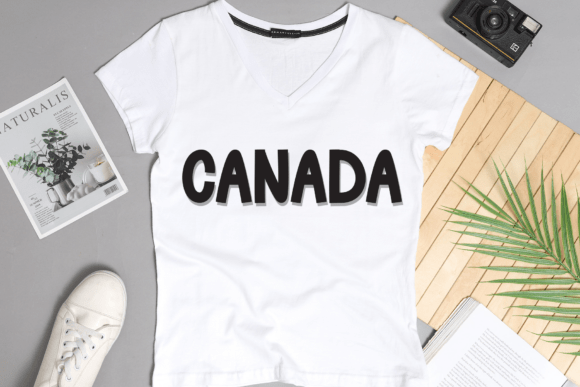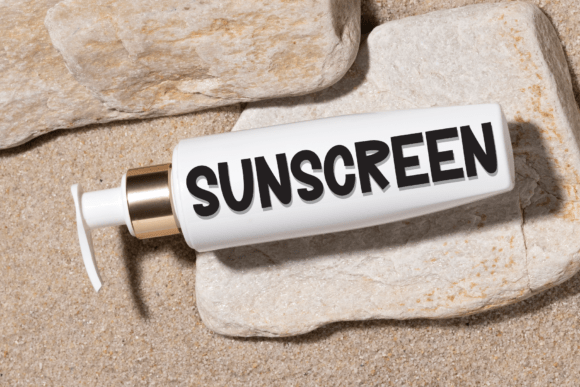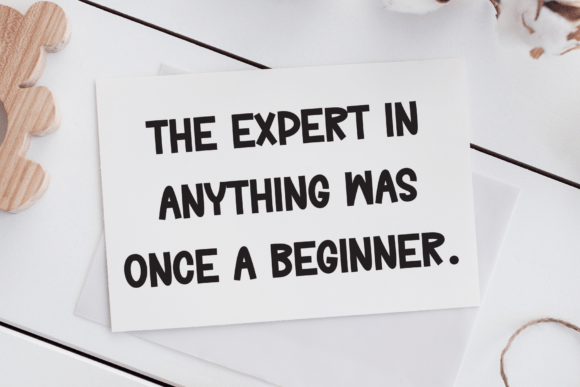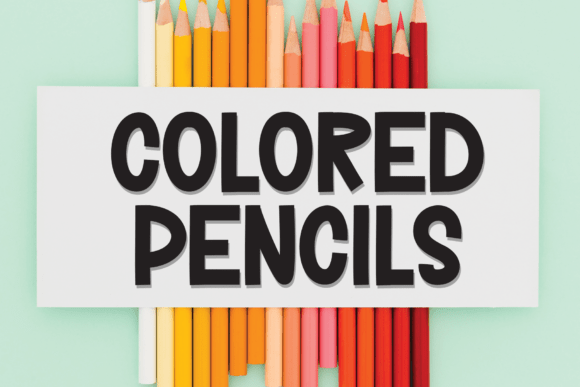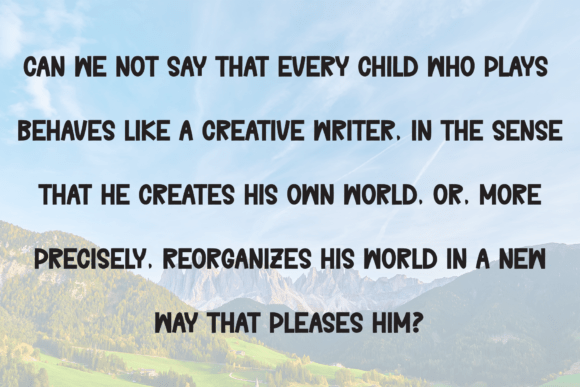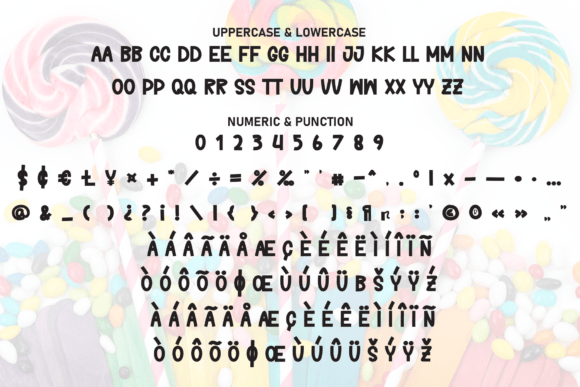
Have you ever found yourself stuck on a design project, desperately seeking that perfect font to bring your ideas to life? It’s a common struggle many creatives face. But what if I told you there’s a font that can instantly add a dash of warmth and clarity to your work? Meet the Candy Lolipop Font, a delightful display font designed to make your projects shine.
This charming font is perfect for branding, headlines, and everyday designs, offering a clean structure and approachable style that’s hard to resist. With its balanced letterforms, the Candy Lolipop Font ensures readability and charm, making every message feel genuine and inviting. Whether you’re a seasoned designer or just starting out, this font is a valuable addition to your toolkit.
Candy Lolipop Font Key Features
- Font Style: A playful and colorful font, perfect for adding a whimsical touch to your designs.
- Unique Characteristics: The Candy Lolipop Font features a unique blend of rounded and pointed shapes, creating a visually appealing and eye-catching effect.
Candy Lolipop Font Review
Candy Lolipop Font is a whimsical and playful typeface that’s sure to bring a smile to anyone’s face. ✨ I love how it captures the essence of a classic lollipop with its rounded edges and colorful vibes. The font is perfect for creating eye-catching graphics, logos, and advertisements that appeal to kids and kids-at-heart.
- Cute and quirky design that’s perfect for playful branding
- Wide range of font styles and weights to choose from
- Highly customizable to fit your brand’s unique personality
- Works well in digital and print applications
However, I do have a few concerns about the font’s limitations. ⚠️ For one, it may not be the best choice for professional or formal branding, as it’s a bit too playful for those types of applications. Additionally, the font may not be as legible at smaller font sizes, which could impact readability.
Candy Lolipop Font is a fun and creative typeface that’s perfect for brands that want to stand out and have a bit of personality. While it may have some limitations, it’s definitely worth considering for the right project. With its wide range of customization options and cute design, it’s sure to bring a pop of color and whimsy to any design.
Tips for Getting the Most Out of the Candy Lolipop Font
Use the Candy Lolipop font for playful and whimsical designs, such as party invitations, children’s products, or social media graphics.
Combine the Candy Lolipop font with bright colors and bold graphics to create eye-catching designs.
Experiment with different font sizes and styles to create visual interest and add depth to your designs.
The Candy Lolipop font is perfect for:
Party invitations and decorations
Children’s products, such as toys and apparel
Social